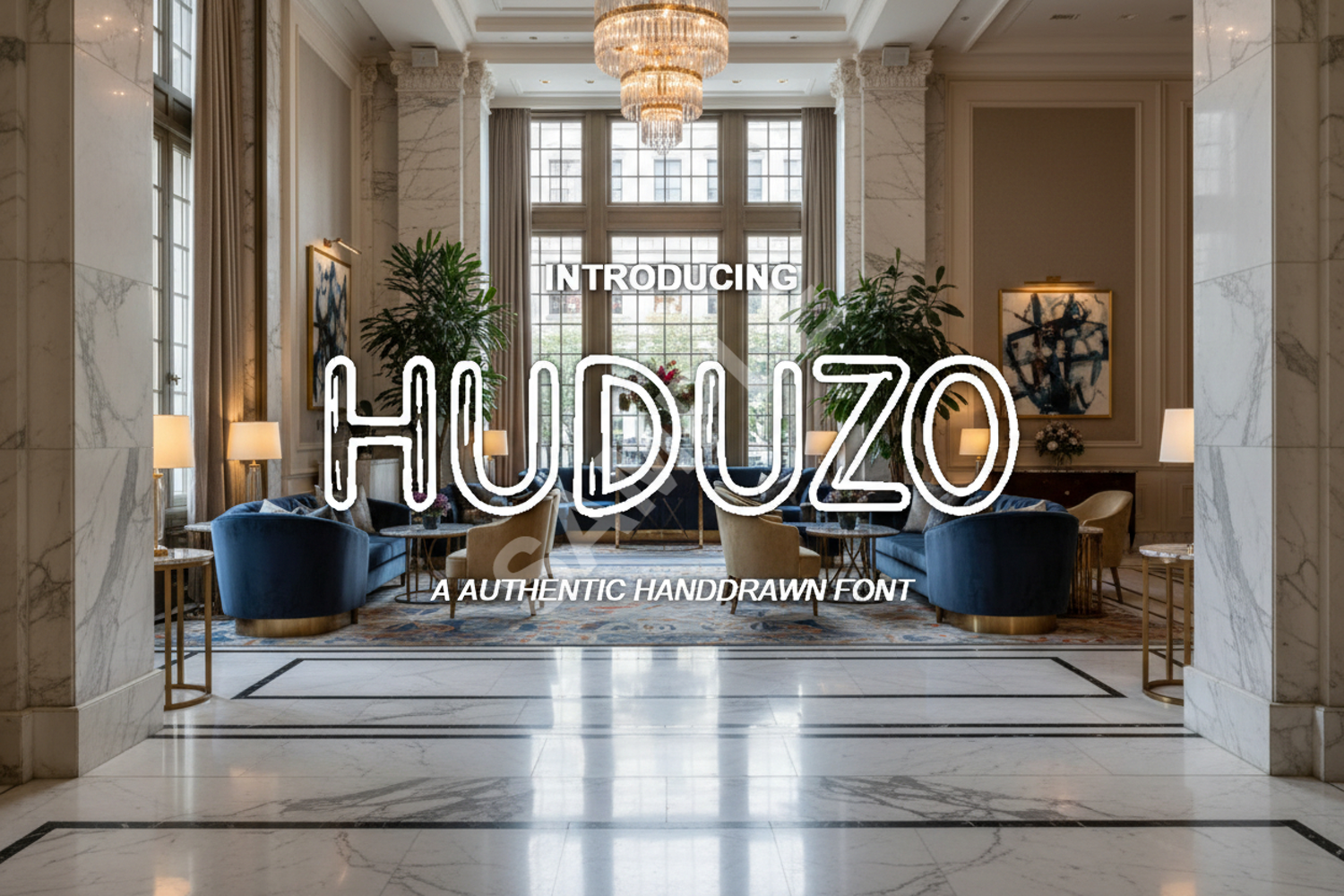
Huduzo - Modern Geometric Sans Serif
Huduzo
Huduzo is a premium geometric sans serif font meticulously crafted for versatility and modern appeal. Featuring clean, architectural lines and balanced proportions, Huduzo offers a sophisticated aesthetic that elevates any creative project from standard to professional.
- Branding and Corporate Identity: Create a memorable and trustworthy brand image.
- Minimalist Editorial Layouts: Perfect for magazine headers and clean body text.
- Digital Design: Optimized for website headers, mobile UI, and app interfaces.
- Professional Stationery: Ideal for business cards, letterheads, and formal invitations.
- Marketing and Advertising: High-impact typography for social media graphics and print ads.